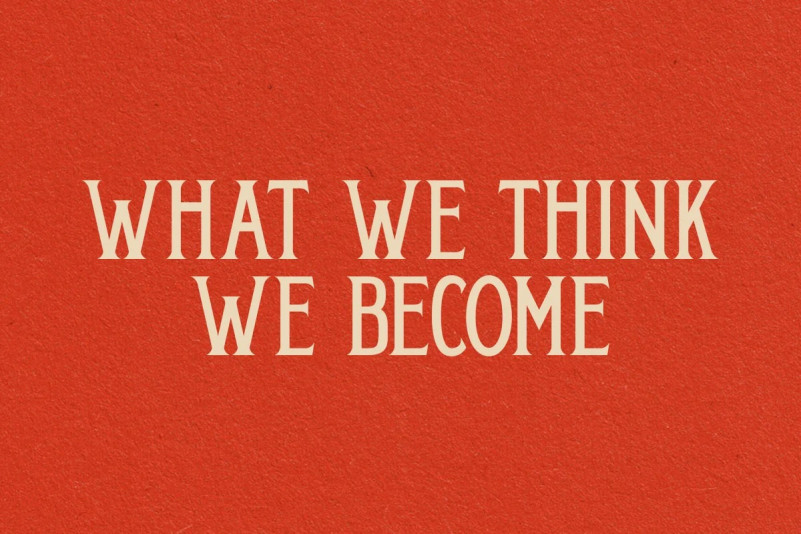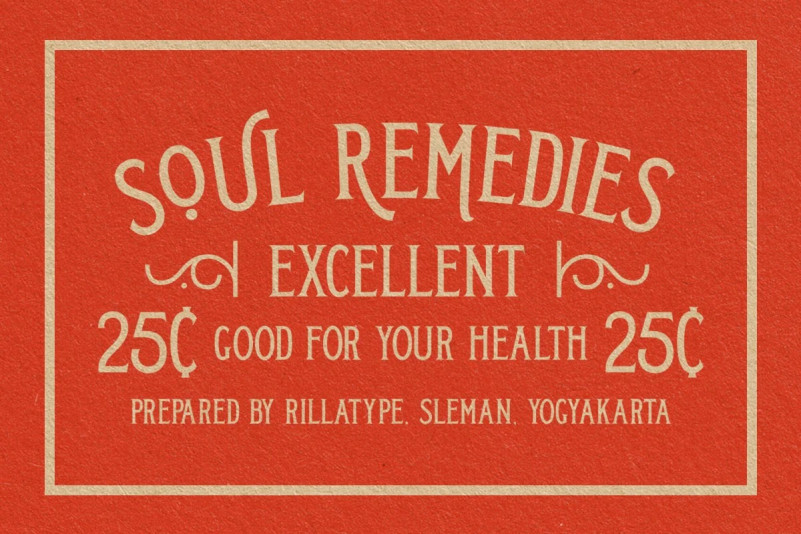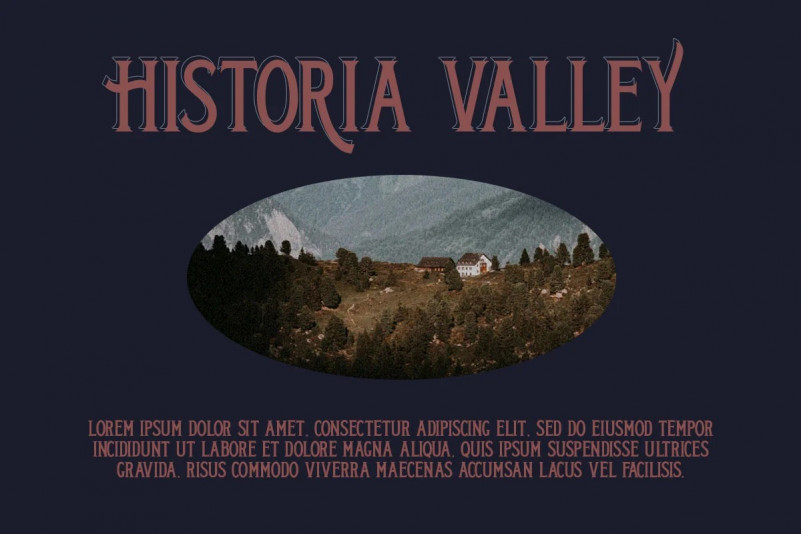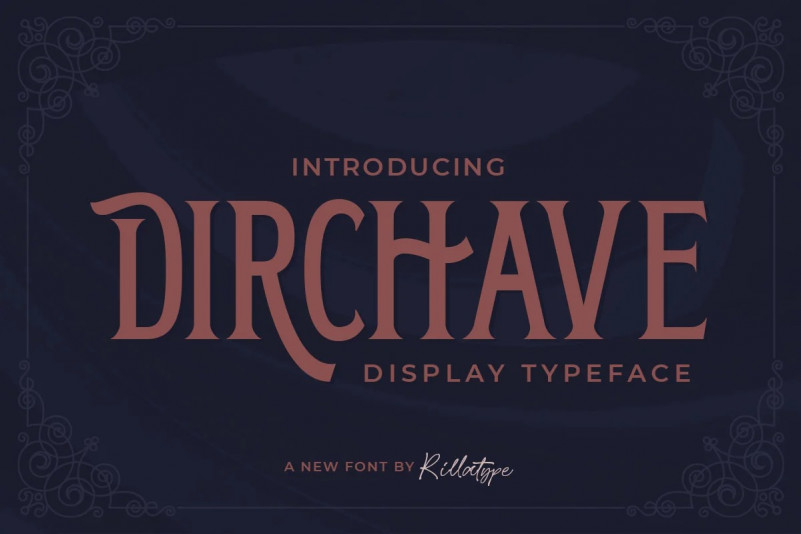
Dirchave Font
Dirchave Serif Font
A masculine vintage display font with tons of special alternative glyphs, ornament and multilingual support. It’s designed and shared by Rillatype. Dirchave is a vintage inspired display font that is perfect for packaging, branding, headline, quotes, etc.